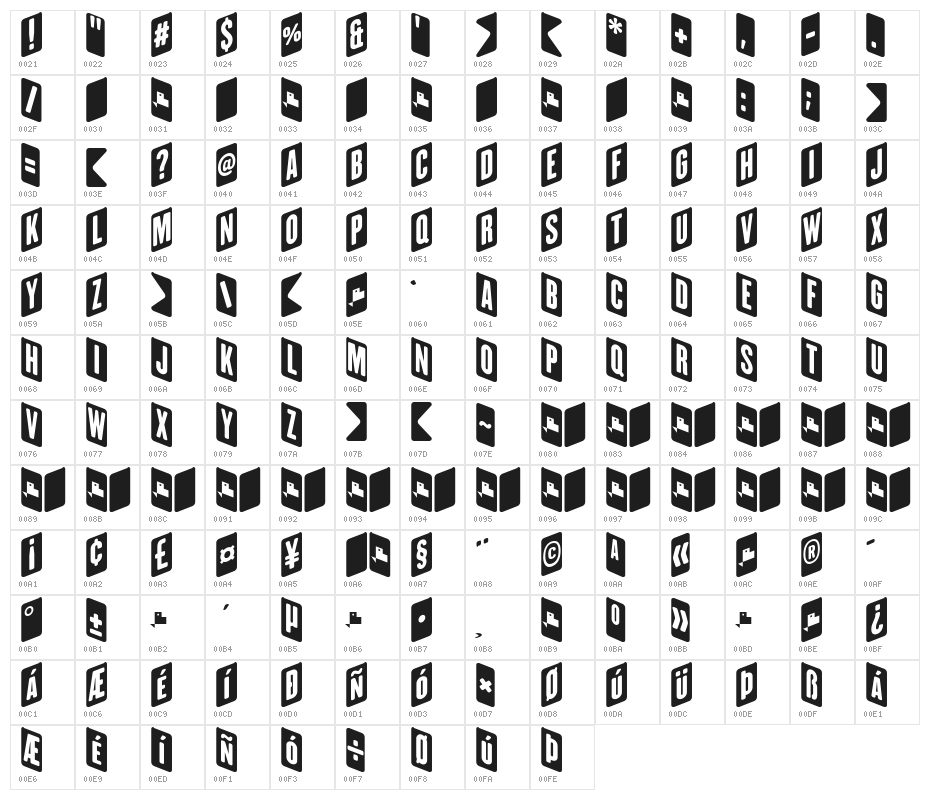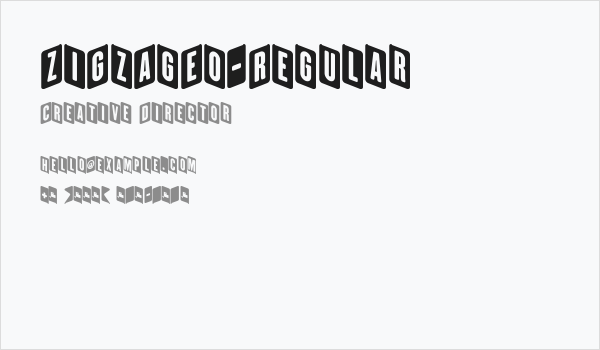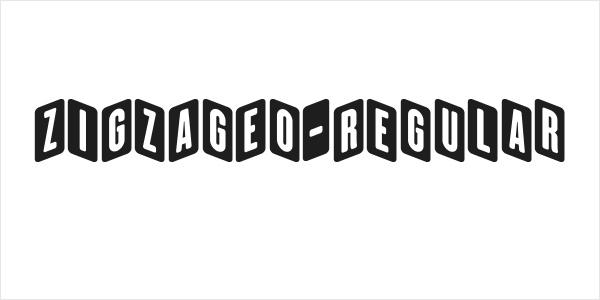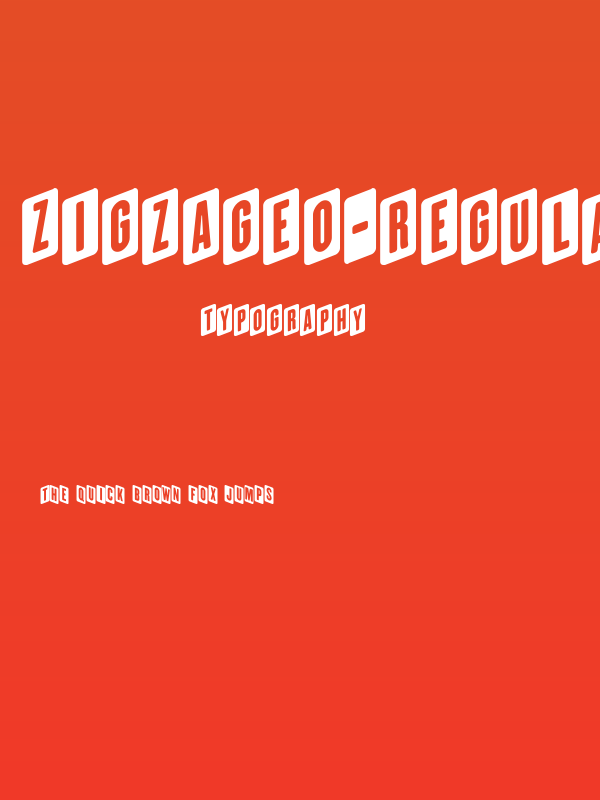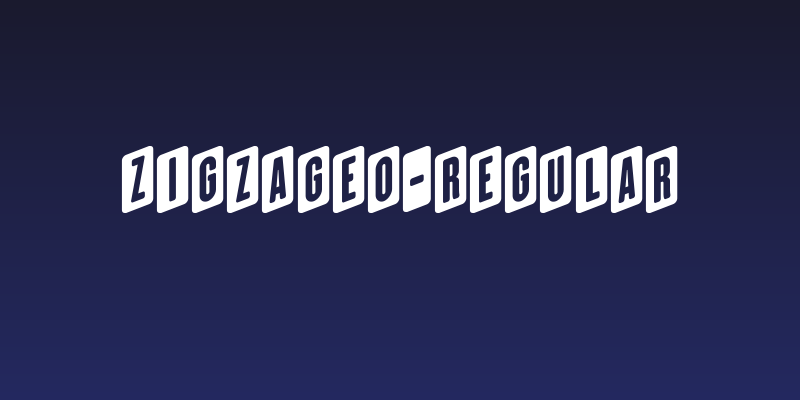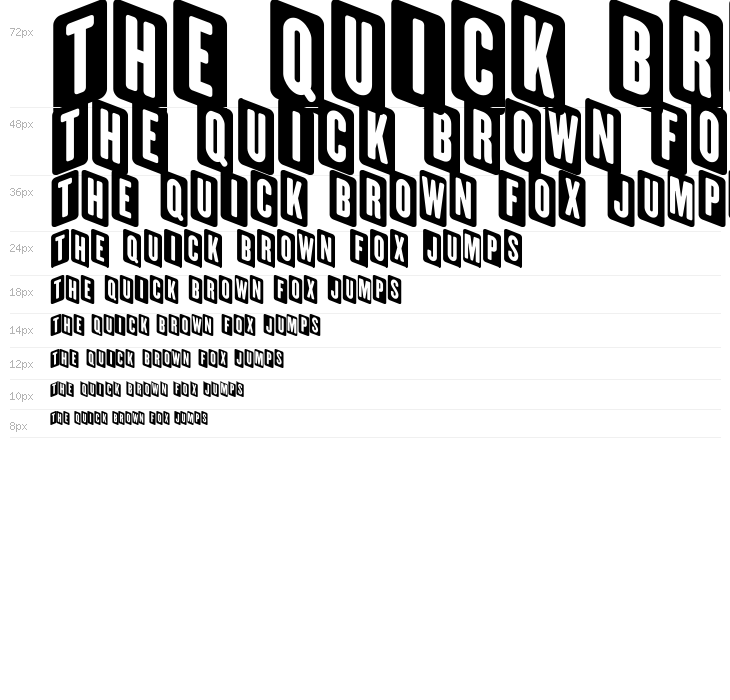
ZiGzAgEo-Regular Font
ZiGzAgEo-Regular Description
This font features a bold, dynamic style with each character set within a slanted rectangular block, creating a sense of movement and energy. The letters are uppercase with a strong, geometric design, emphasizing straight lines and sharp angles. The font's unique structure gives it a three-dimensional appearance, as if each character is leaning forward. This design choice adds a playful and modern twist, making it stand out in any application. The characters are well-defined and maintain consistent spacing, ensuring readability despite the bold design. The font includes a full set of uppercase letters, numbers, and a selection of special characters, all following the same distinctive style.
| Proposed Projects | Ideal for posters, headlines, branding, and any project requiring a modern, eye-catching typeface. |